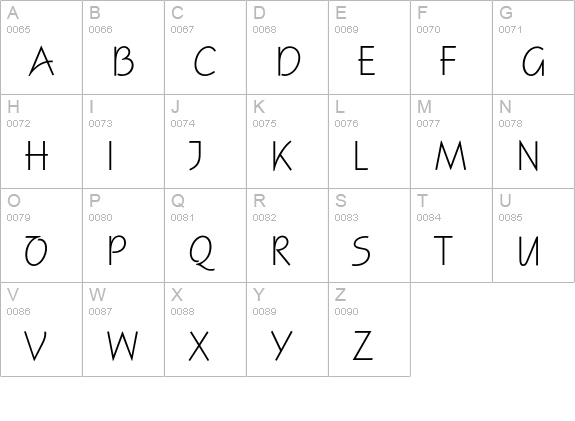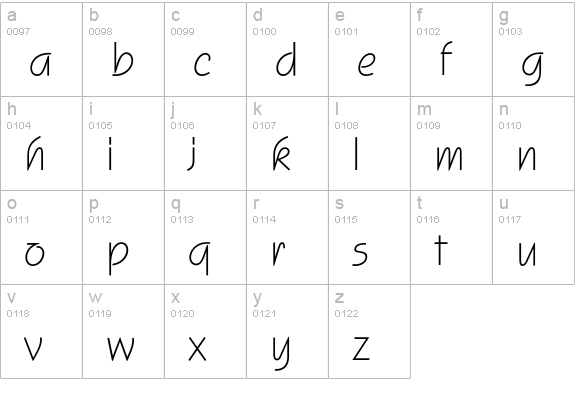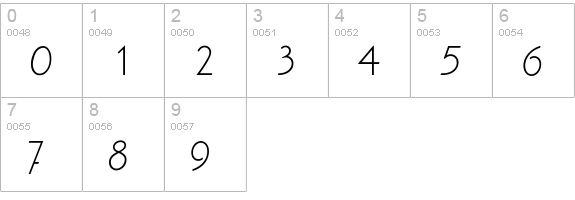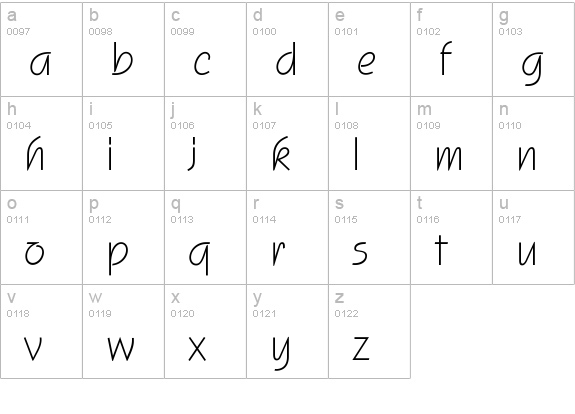
Status Font Details
Status font is a breathtaking display font that effortlessly captures attention with its stylish and modern design. With its sleek lines and intricate curves, this font adds a touch of sophistication to any project, making it perfect for logos, headlines, and branding purposes. What makes Status font even more appealing is the fact that it is completely free! Yes, you read that right. This extraordinary font can be downloaded at absolutely no cost from FontsMarket.com. So, whether you're a professional designer or just someone looking to add a little flair to your personal projects, Status font is readily available for you to unleash your creativity. With its wide range of characters and glyphs, Status font provides endless possibilities for customization and experimentation. It offers a harmonious balance between elegance and legibility, ensuring that your message is conveyed with utmost clarity while also leaving a lasting impression on your audience. The versatility of Status font is truly remarkable. It seamlessly adapts to various design styles, making it a versatile choice for both print and digital media. Whether you're creating eye-catching posters, captivating social media graphics, or designing a website that demands attention, Status font will undoubtedly elevate your designs to new heights. So why wait? Download Status font for free at FontsMarket.com and let your creativity soar. With its striking aesthetic and effortless appeal, this font is guaranteed to make a statement in your designs and leave a lasting impression on anyone who lays eyes on it. Don't miss out on this incredible opportunity to add a touch of elegance and sophistication to your projects. Get Status font now and unlock a world of design possibilities.